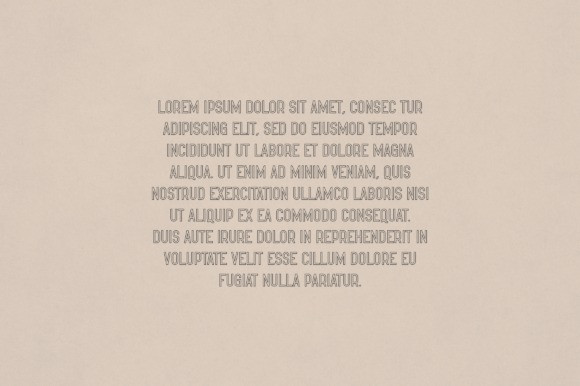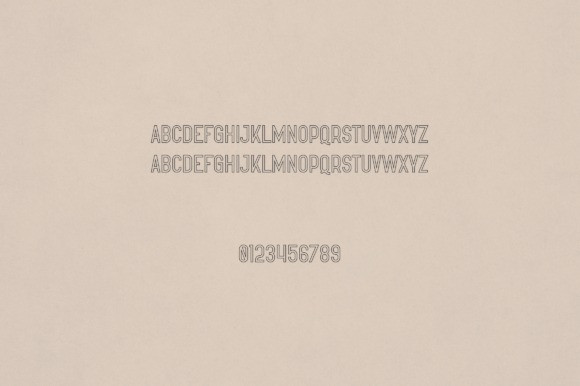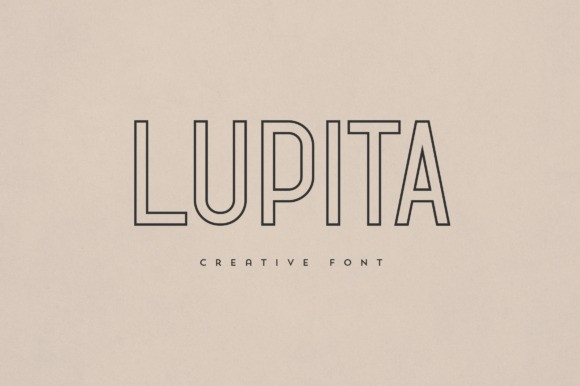
Lupita Font
Lupita Font is an elegant and versatile sans serif font that will make your typography truly unique! It will enchant every logo, branding, headline, or plain text!